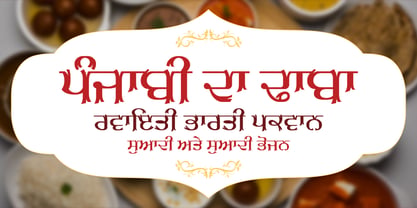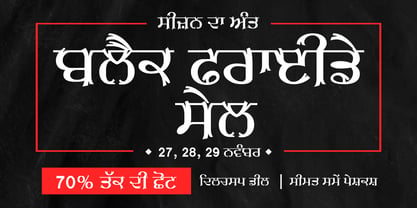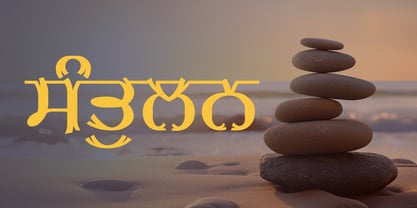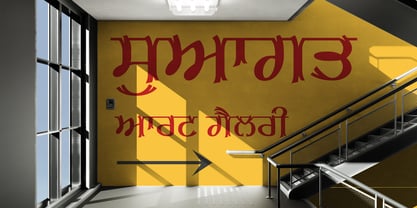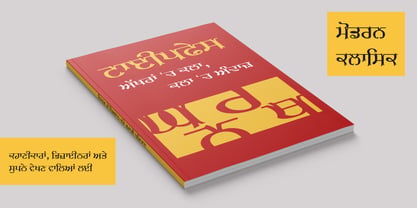
Shree Punjabi 3103
by Modular InfoTech
The Shree Punjabi 3103 Font Family was designed by Modular Infotech and published by Modular InfoTech. Shree Punjabi 3103 contains 2 styles and family package options. More about this family
Shree Punjabi 3103 is a clean and disciplined display-style typeface with even strokes and balanced proportions. Its Regular weight maintains consistency, making it highly legible across different text sizes. The design carries a professional tone with subtle modernity, ensuring clarity in both print and digital use.
Well-suited for banners, headings, broadcast media, and digital readable interfaces. Its uniformity and readability make it ideal for advertising, event publications, and social media creatives.
About Modular InfoTech
Modular Infotech (formerly Modular Systems), based in Pune, India, was established in 1983 to advance Indian scripts in the Printing Industry. The company began its journey by developing CRT-based phototypesetters (PTS100), which were launched in 1987. Without font generator tools, Modular created a proprietary font format, continuously enhancing it to meet evolving needs. Collaborating with artists across India, they built the Nation’s most extensive collection of original typefaces for all Indian Scripts.In 1989, Modular launched DOS-based software paired with Indic keyboard handlers using its proprietary font format. Adapting to technological advancements, they transitioned to industry-standard formats like TrueType (TTF) and Adobe Type1, culminating in the launch of their flagship multilingual software, Shree-Lipi, in 1991. This period also marked the rise of laser printers, prompting further innovation. The company later embraced OpenType font formats introduced by Microsoft, ensuring seamless compatibility with modern platforms.Today, Modular Infotech is renowned for possessing the world’s most extensive Indic fonts., designed to support India’s diverse linguistic heritage. Their fonts cover over 15 Indian languages, including Devanagari, Gujarati, Gurmukhi, Bangla, Assamese, Manipuri, Odia, Tamil, Kannada, Telugu, Malayalam, and Vedic Sanskrit. Each typeface is meticulously crafted for readability, cultural resonance, and aesthetic appeal, enabling authentic communication in regional languages.Modular fonts excel in rendering complex ligatures and unique glyphs, accurately capturing each script's stylistic and cultural nuances. Leveraging advanced OpenType technology, these fonts ensure flawless representation of intricate Indian scripts across print and digital mediums.The extensive font collection serves many industries, including Publishing, Design, Education, Newspapers, and Government sectors. Beyond facilitating multilingual communication, Modular Infotech is vital in preserving India’s linguistic heritage, bridging traditional and modern media needs. The company’s impact extends globally, with prominent International Clients such as Google, Microsoft, Apple, and RedHat relying on its expertise in Indic typography.Through its pioneering efforts and unwavering commitment to quality, Modular Infotech has made regional language content more accessible, visually impactful, and culturally authentic, cementing its place as a leader in Indic font development.